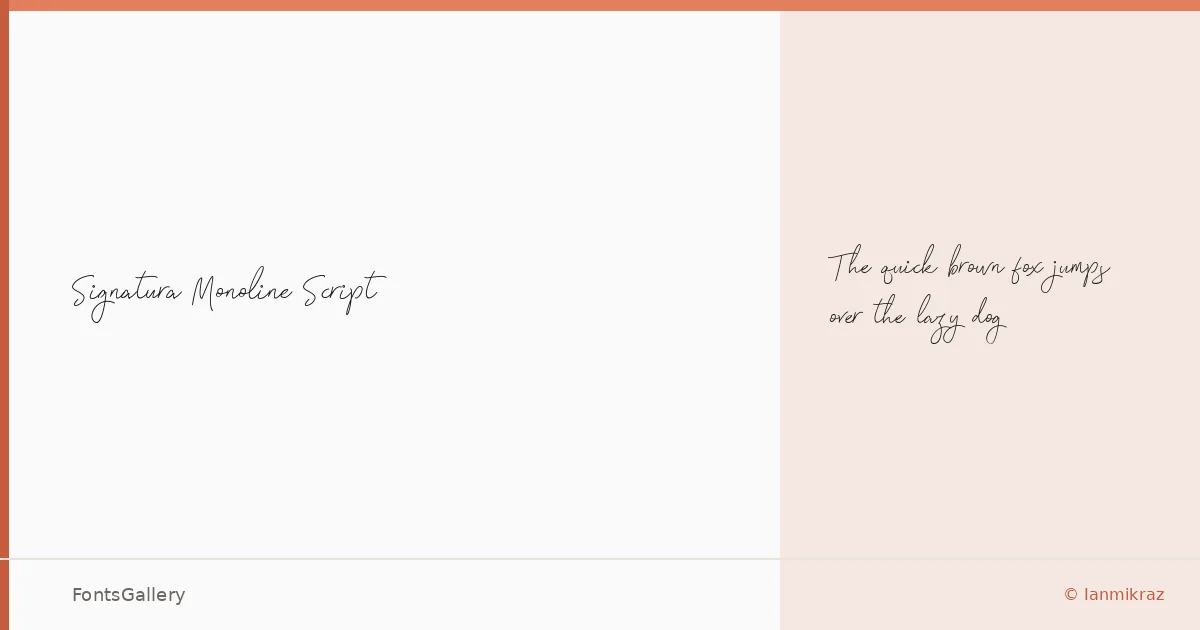
About Signatura Monoline Script Font
There is a particular lightness to this script — the strokes hold an even, unmodulated weight throughout, giving the lettering a clean, almost pen-drawn quality without the drama of thick-to-thin contrast. It comes from designer Ianmikraz, and that deliberate monoline construction is what sets the character of the whole face. Latin coverage is partial, so check your glyph set against any special characters your project requires.
The family ships as a single Regular cut in both TTF and OTF formats. What it brings in that one weight is a mood that reads as classic, romantic, and quietly luxurious — the kind of letterform that feels at home on formal stationery without tipping into stiffness. The consistent stroke width keeps things graceful rather than overwrought, which makes it easy to scale from a large display headline down to a smaller logotype lockup.
The face was drawn with wedding suites, invitation cards, greeting cards, and certificates in mind — anywhere the handwritten quality needs to carry genuine elegance. It also holds up well as a logo script when paired against something structural. Canela, Helvetica, ABC Arizona, Abrade, and Anglecia Pro all work as companions, giving you options from contemporary serif warmth through clean grotesque neutrality depending on what the project demands.